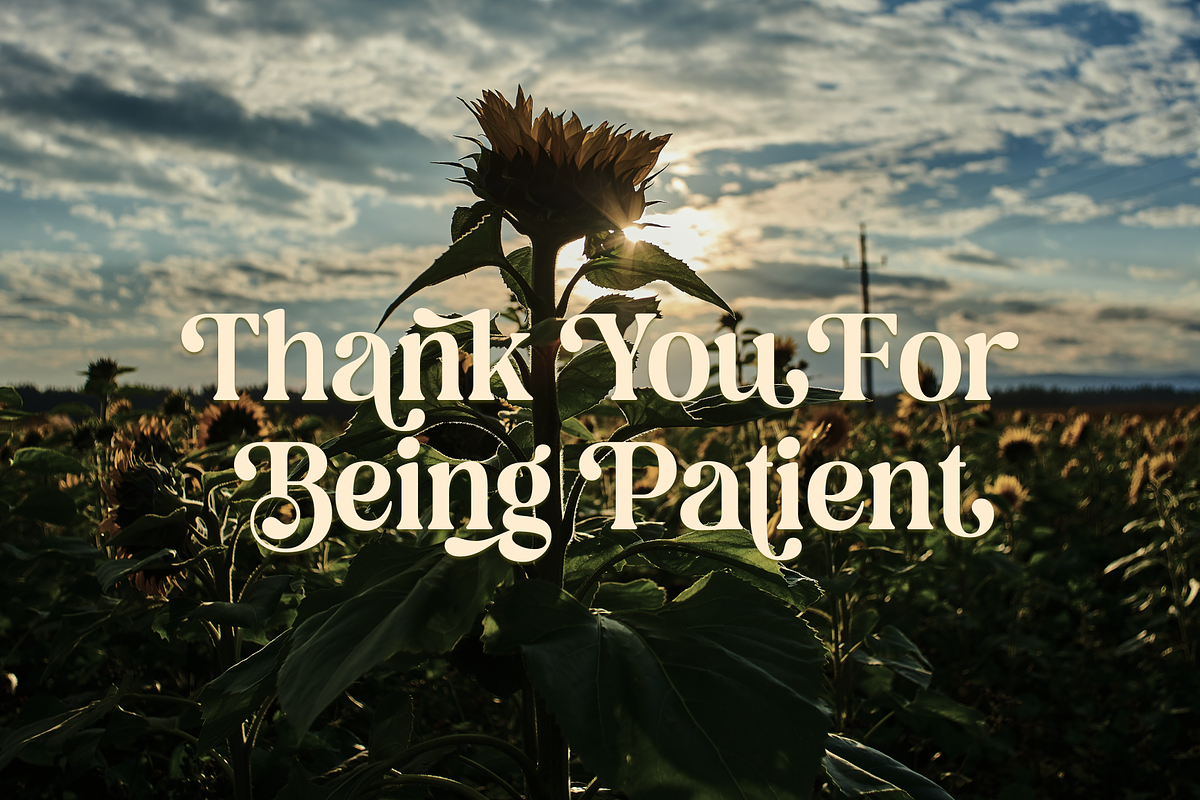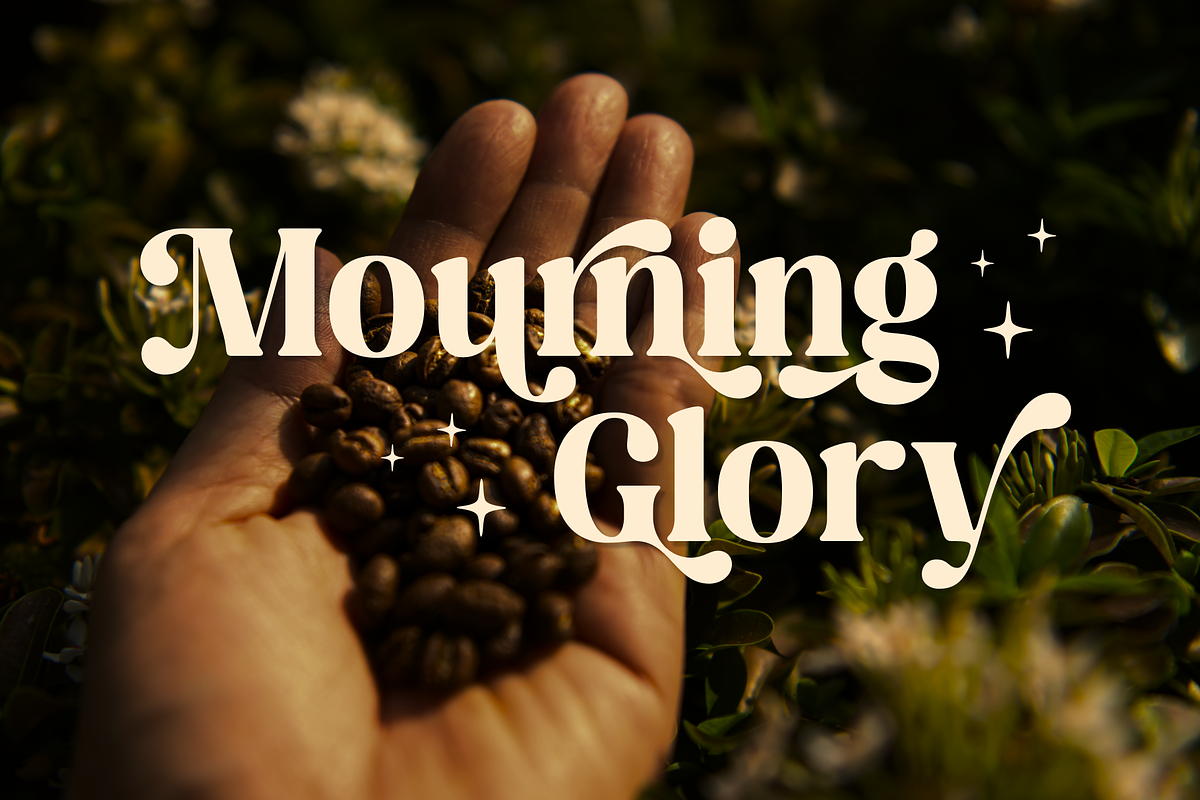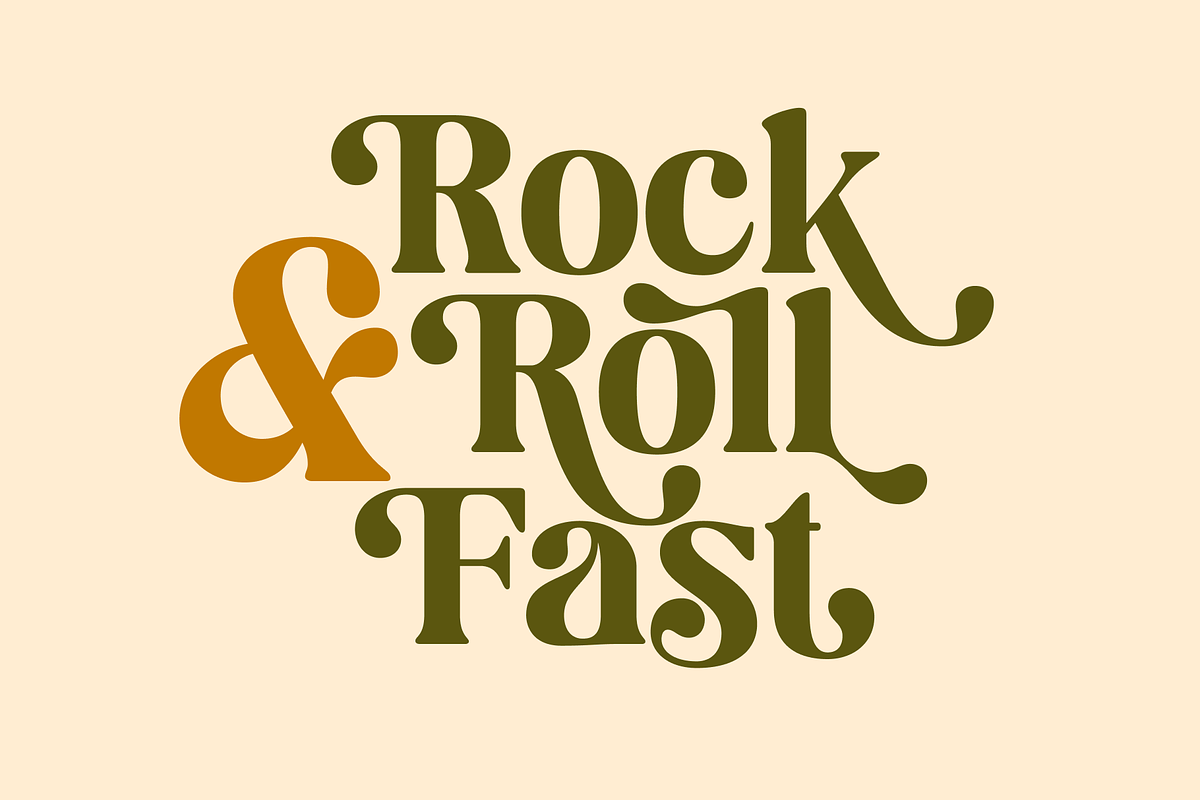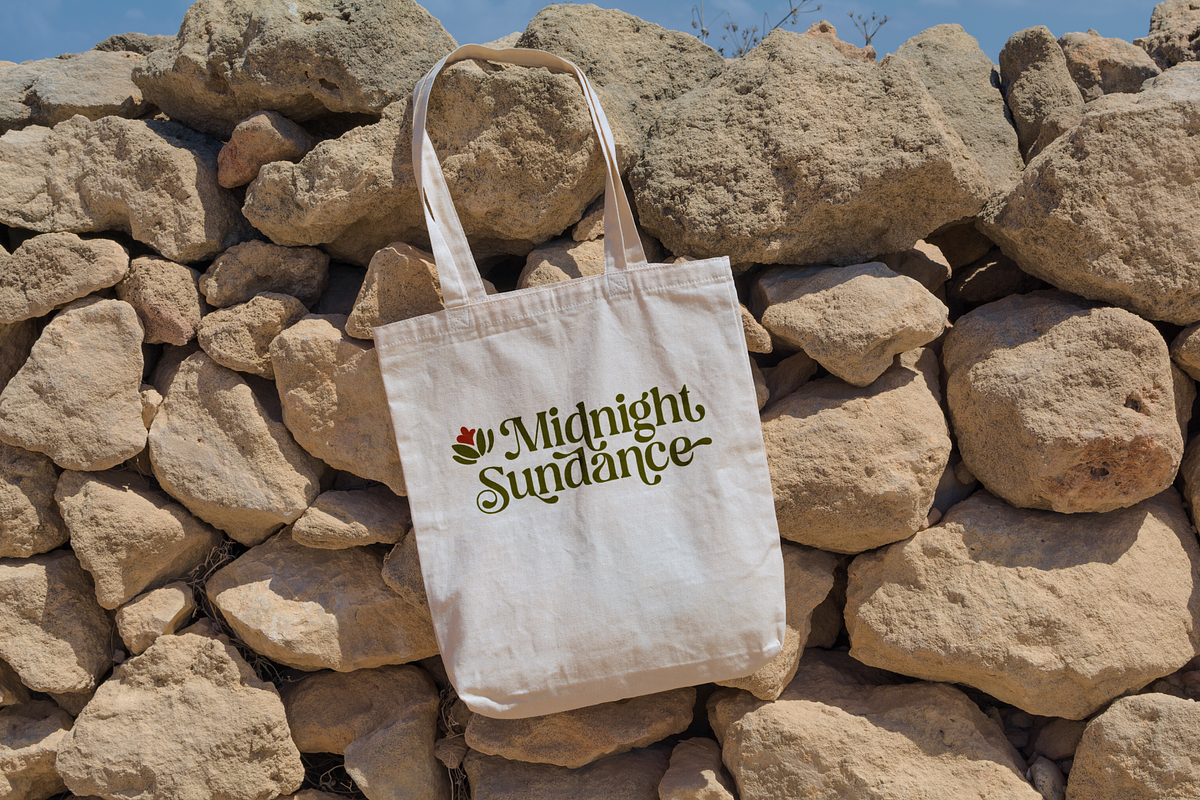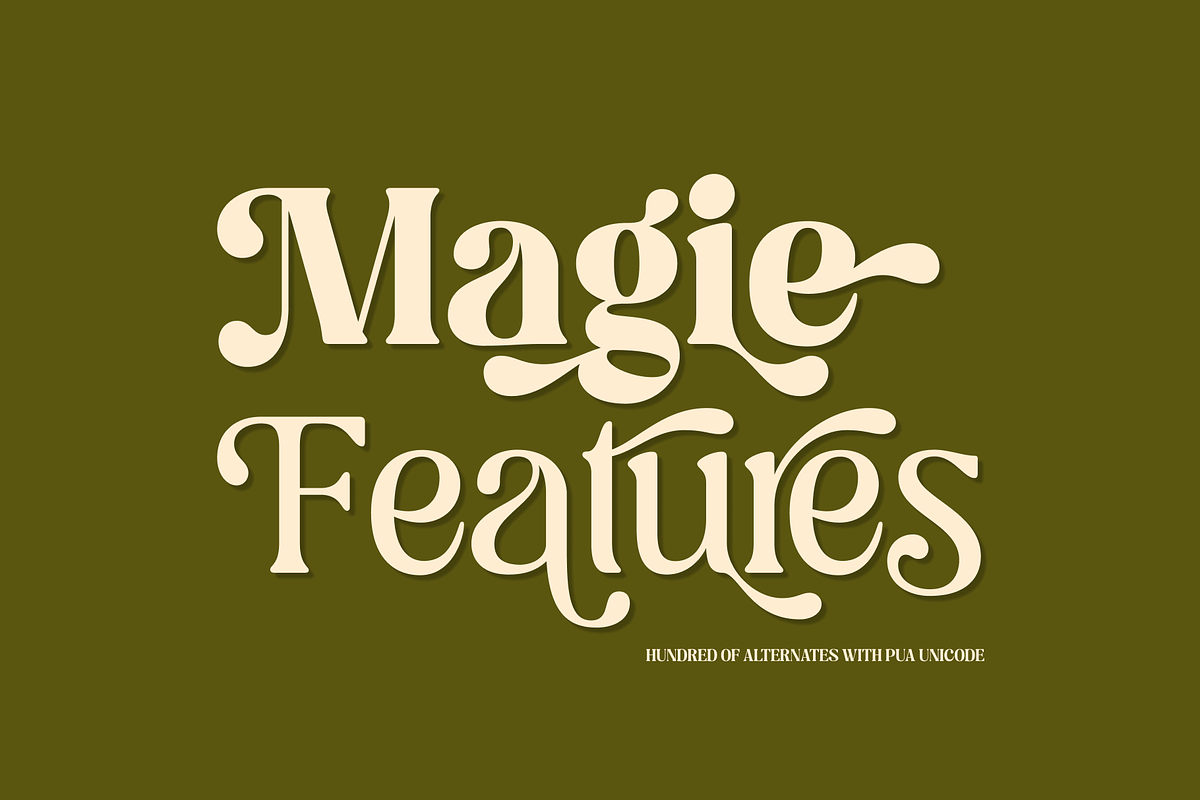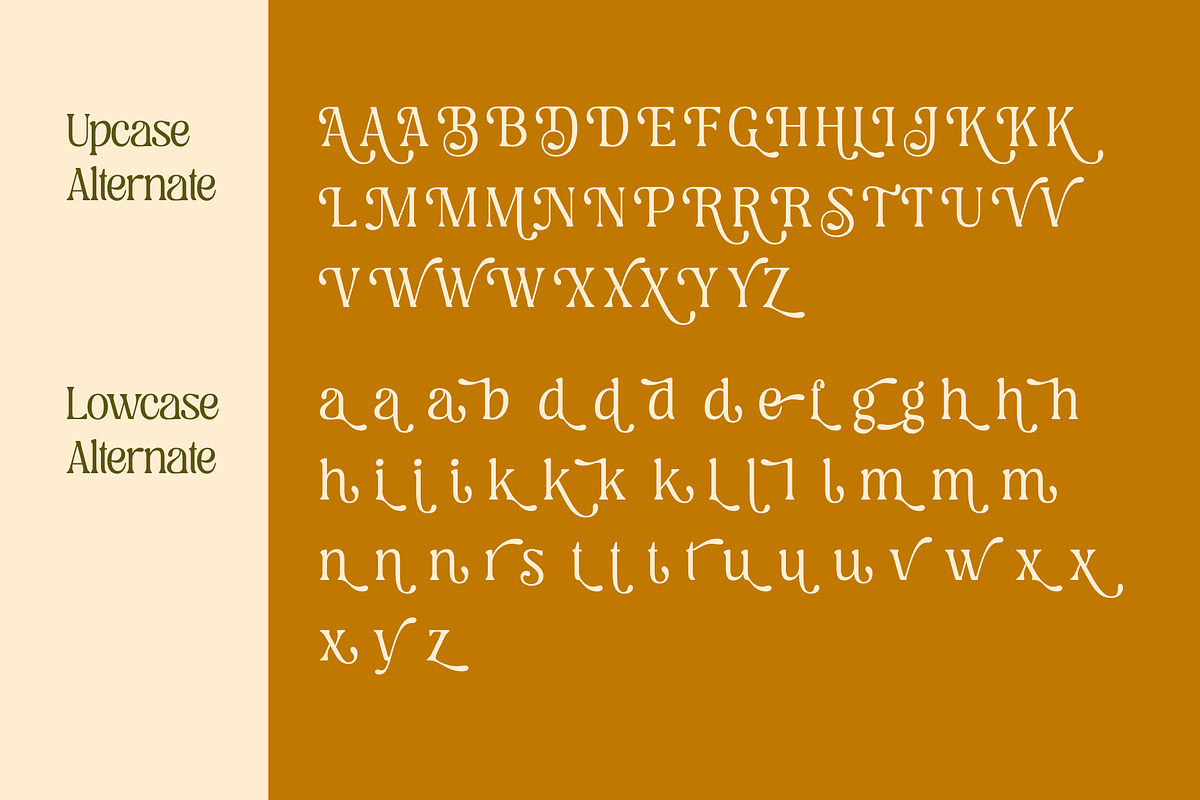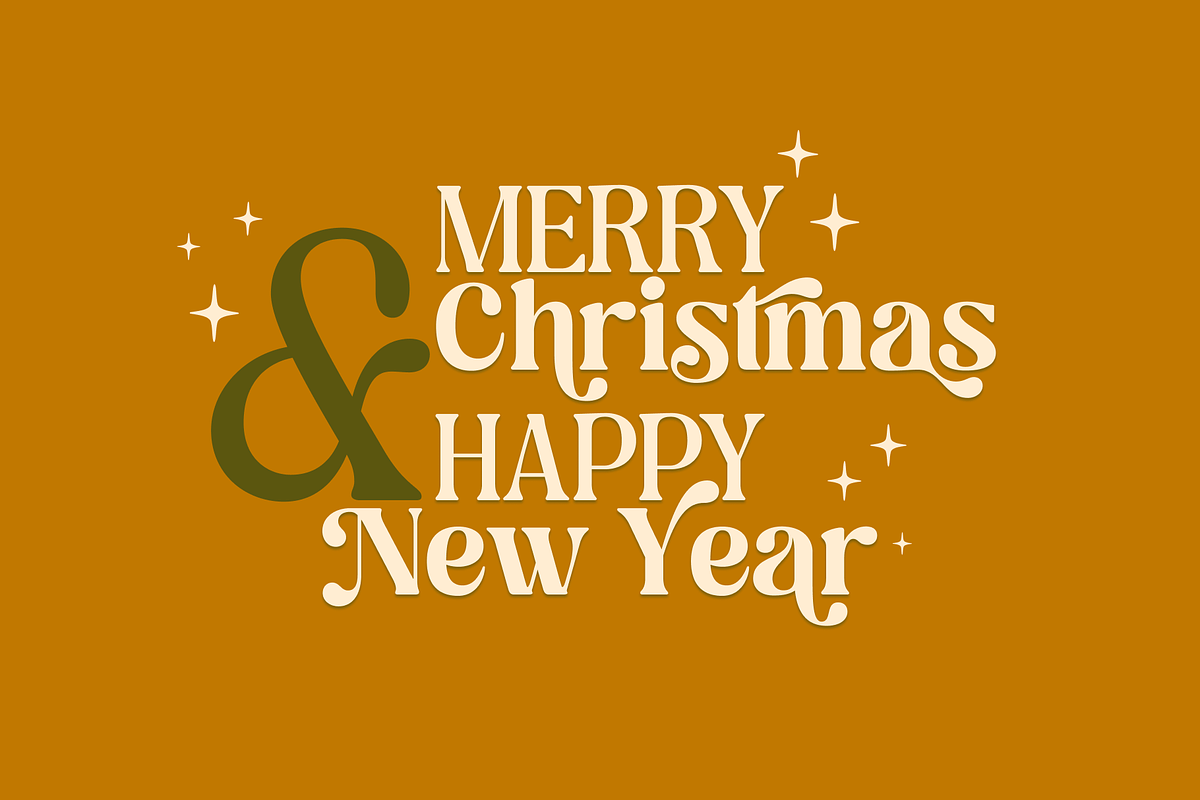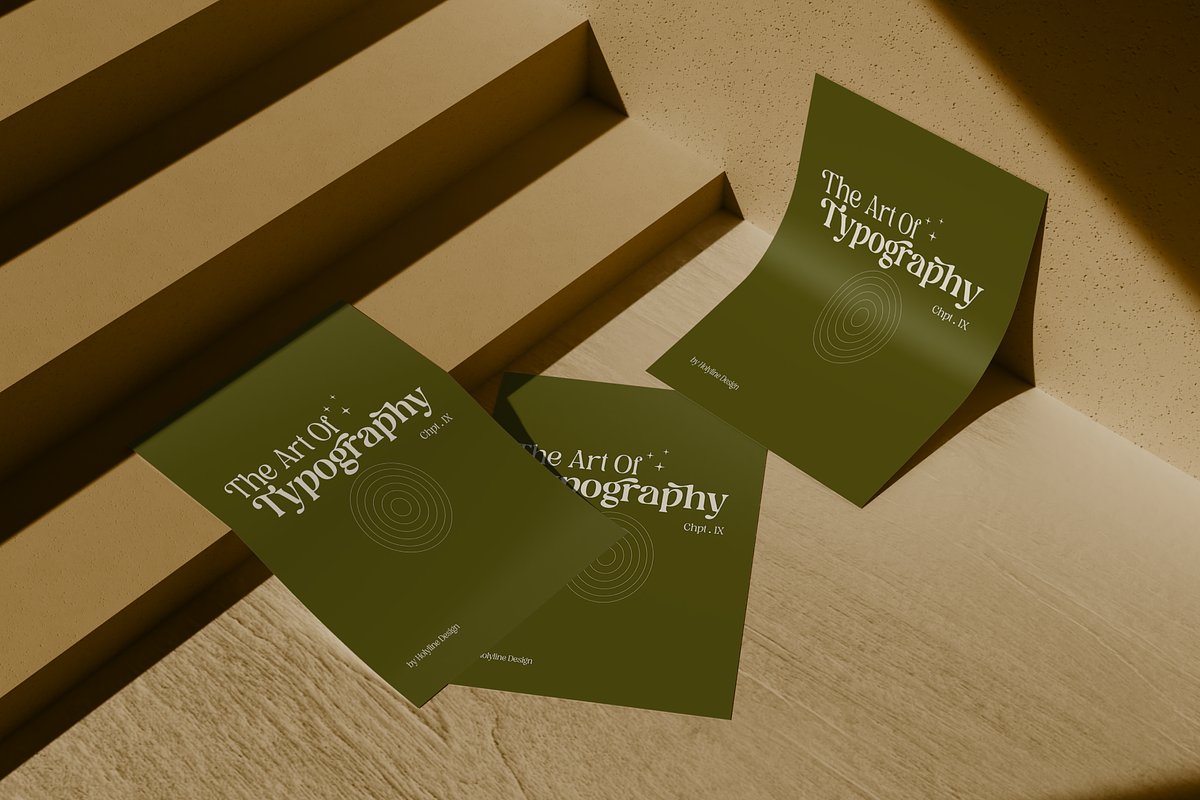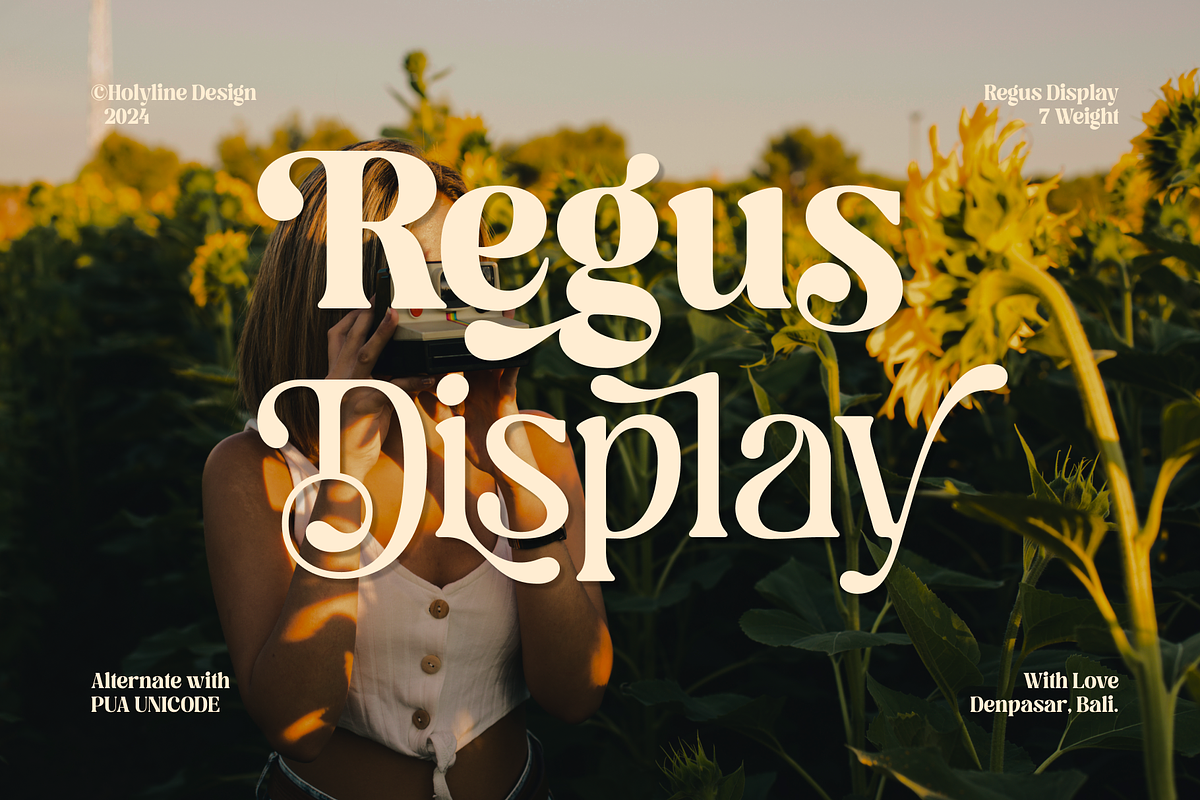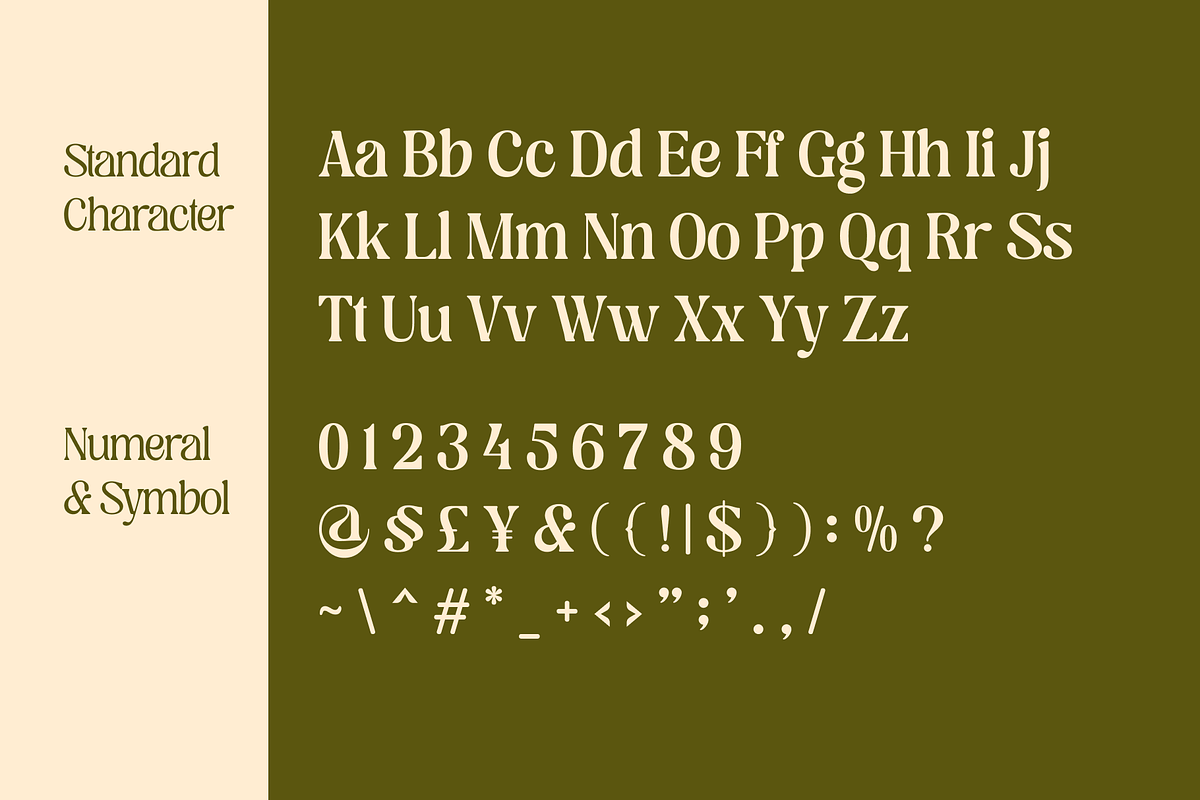
Regus Display - 90's Serif Family
Regus Display is a lively and elegant serif display font inspired by the charm of vintage typefaces and timeless designs from the ’60s to the ’90s. Perfect for magazine layouts, branding, and editorial work, it captures the nostalgia of classic aesthetics with a playful, modern twist. Featuring 7 weights from thin to bold, Regus Display adapts effortlessly to any design need. It also includes a wide variety of alternates, allowing designers to create stunning curves and intricate shapes in seconds. This makes it easy to achieve unique, eye-catching results with minimal effort. Regus Display is the perfect choice for projects that demand sophistication, creativity, and a touch of vintage flair.